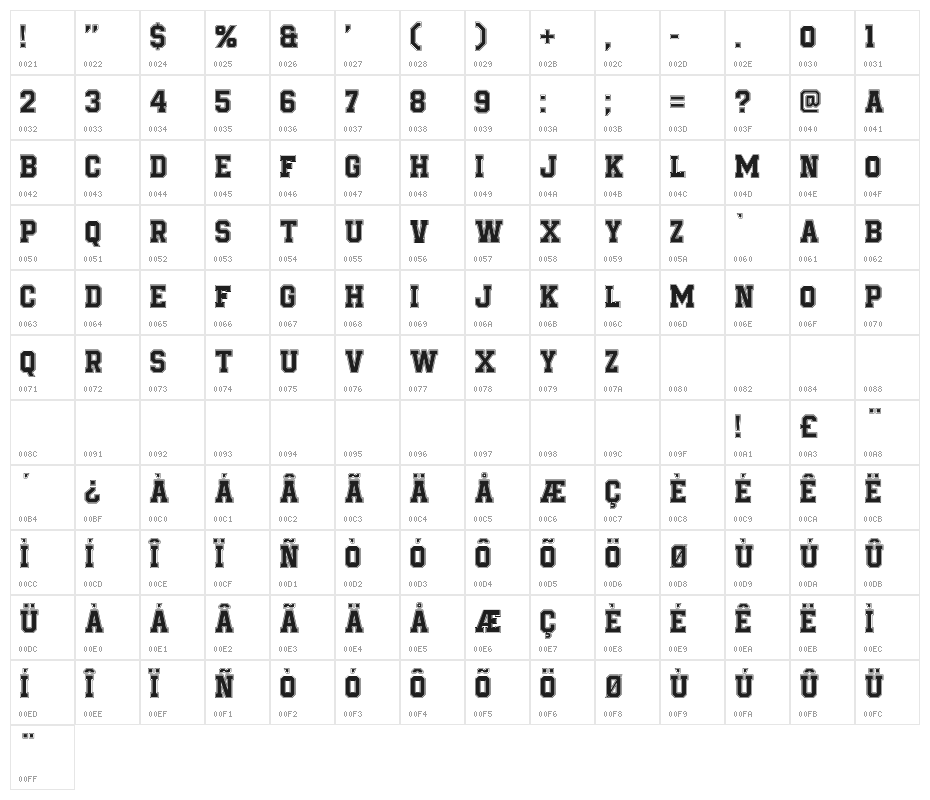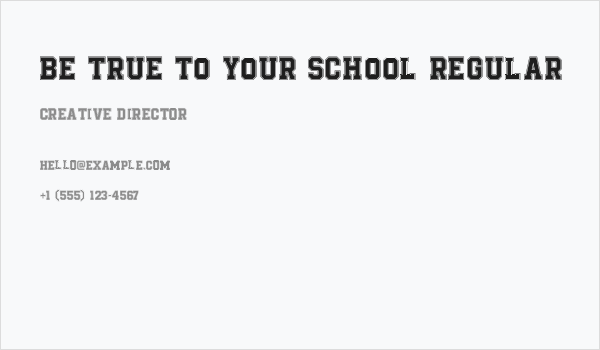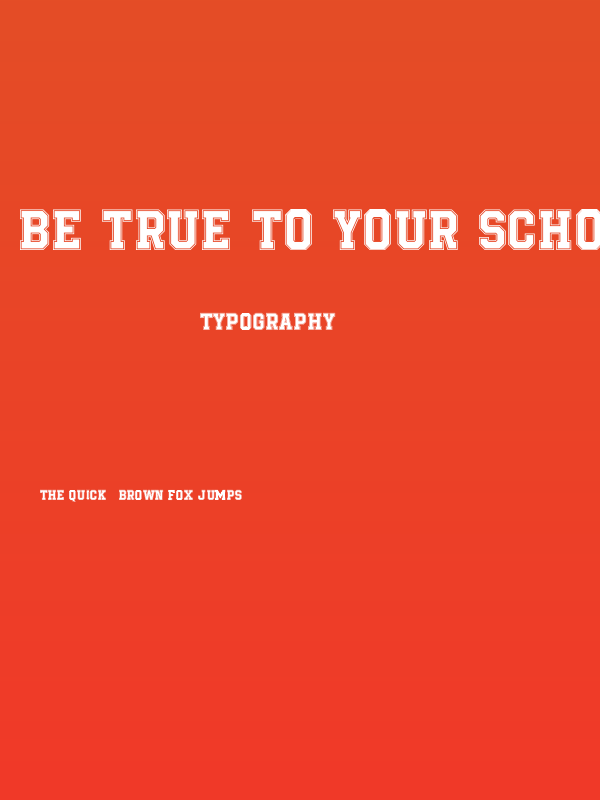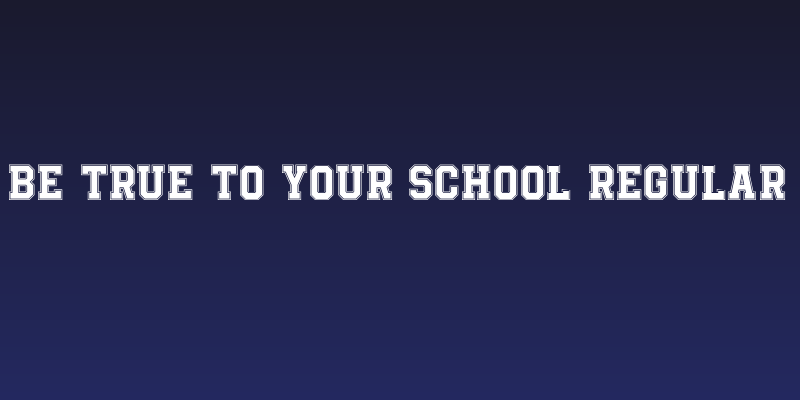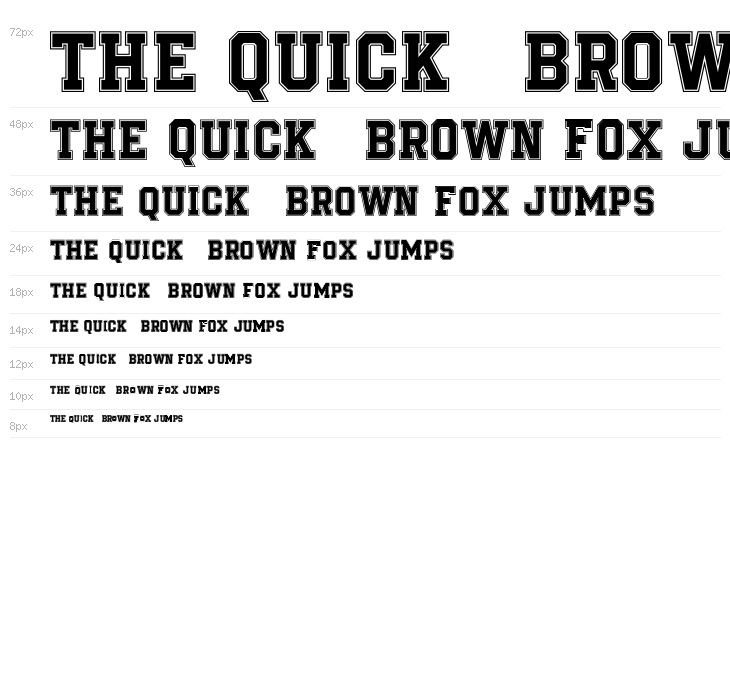
Be True To Your School Regular Font
Be True To Your School Regular Description
This font features a bold, collegiate style with strong, block-like characters. The letters are outlined, giving them a three-dimensional appearance that is reminiscent of classic varsity jackets and sports team logos. The uppercase letters are prominent and commanding, while the numbers and special characters maintain the same robust style. The font's design is clean and structured, making it ideal for creating a sense of tradition and strength. Its boldness and clarity ensure high readability, even from a distance, making it suitable for various applications where impact is essential.